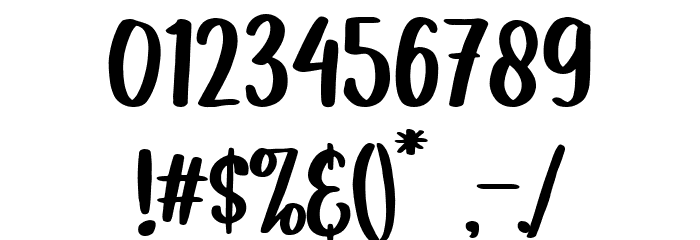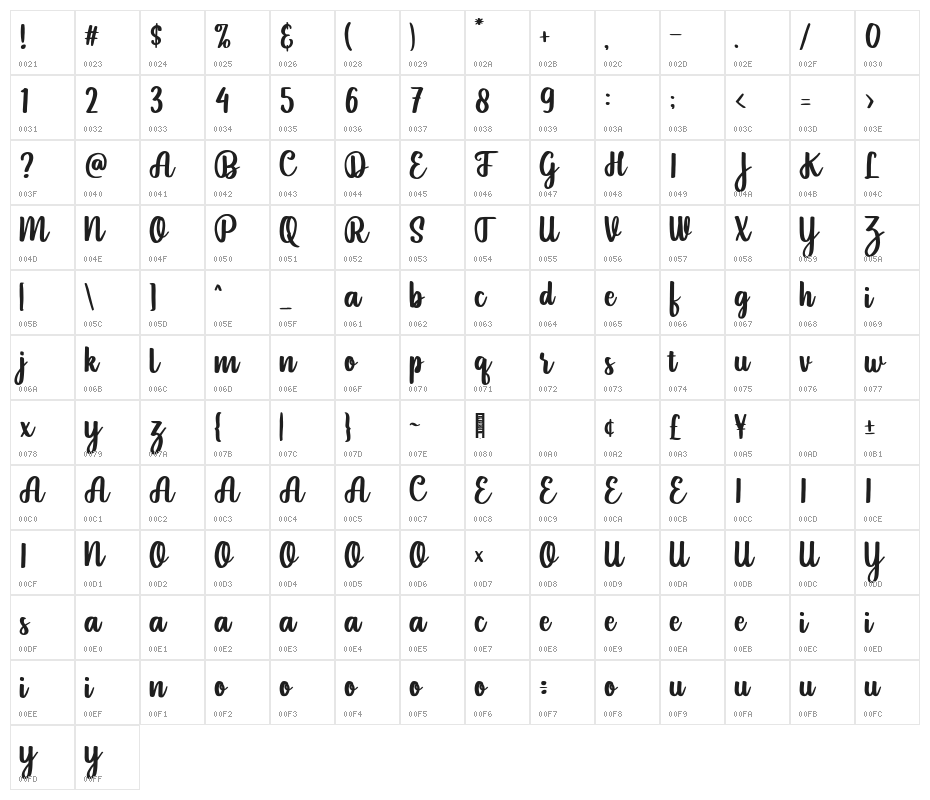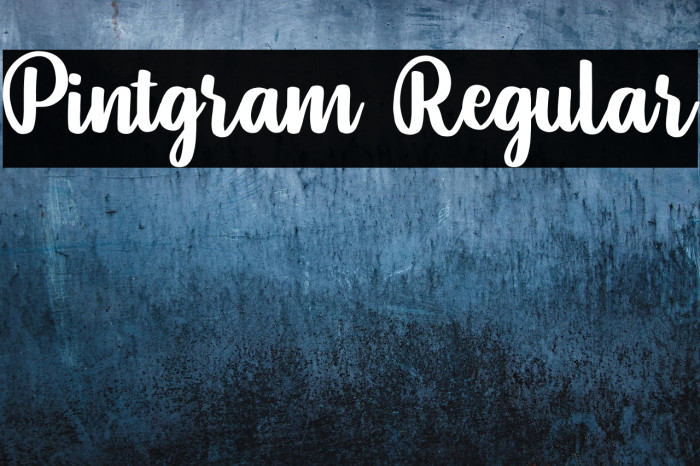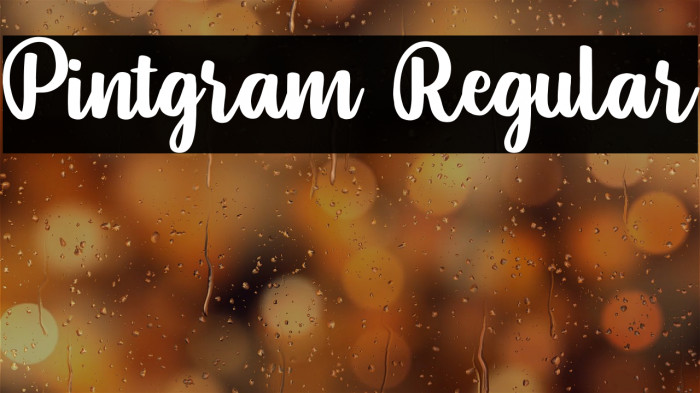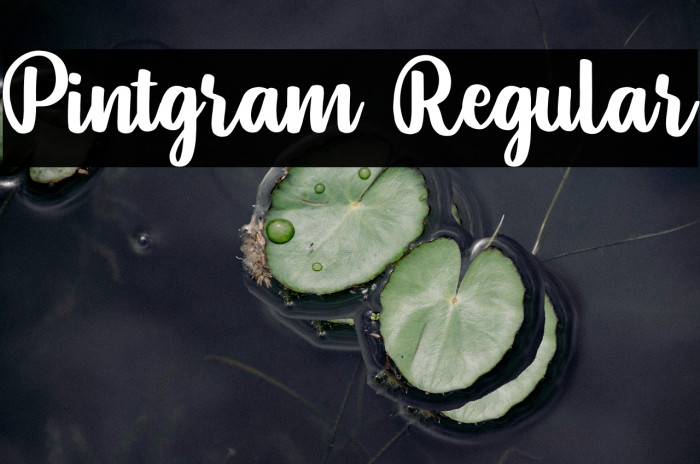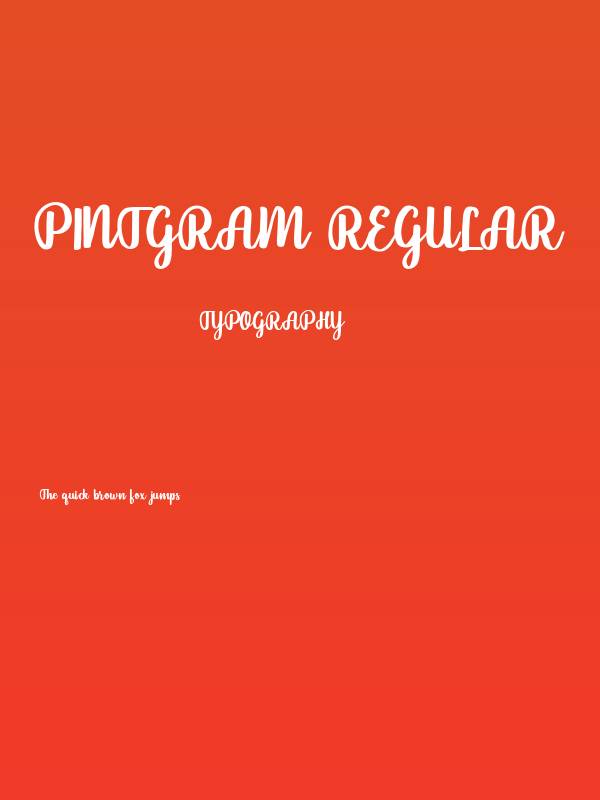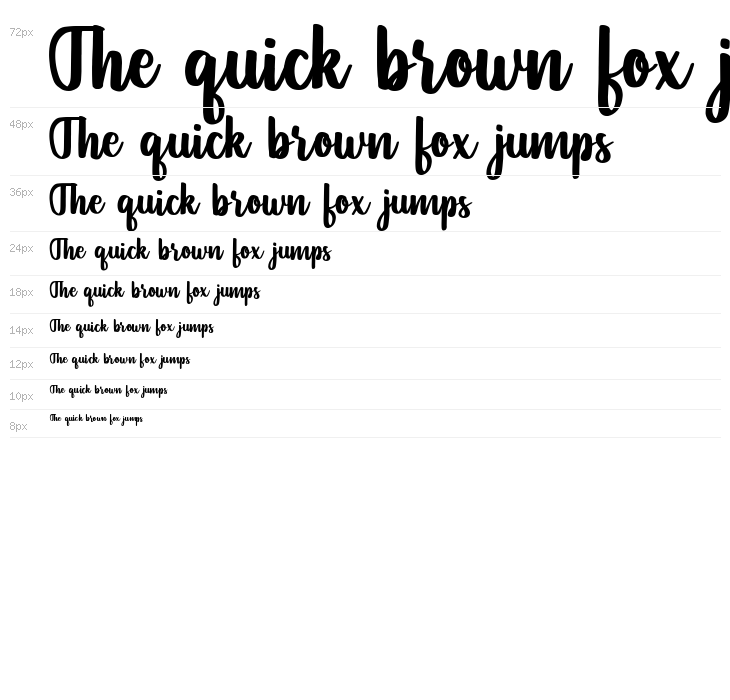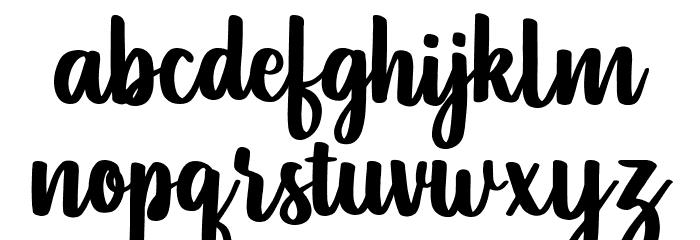
Pintgram Regular Font
Pintgram Regular Description
This font features a bold and expressive script style, characterized by its fluid and connected letterforms. The uppercase letters are elegantly curved with a playful touch, while the lowercase letters maintain a consistent flow, enhancing readability. The numerals are robust and align well with the overall aesthetic, providing a cohesive look. Special characters are crafted with the same attention to detail, ensuring versatility across various applications. The font's dynamic appearance makes it suitable for creative and artistic projects, offering a modern yet timeless appeal.